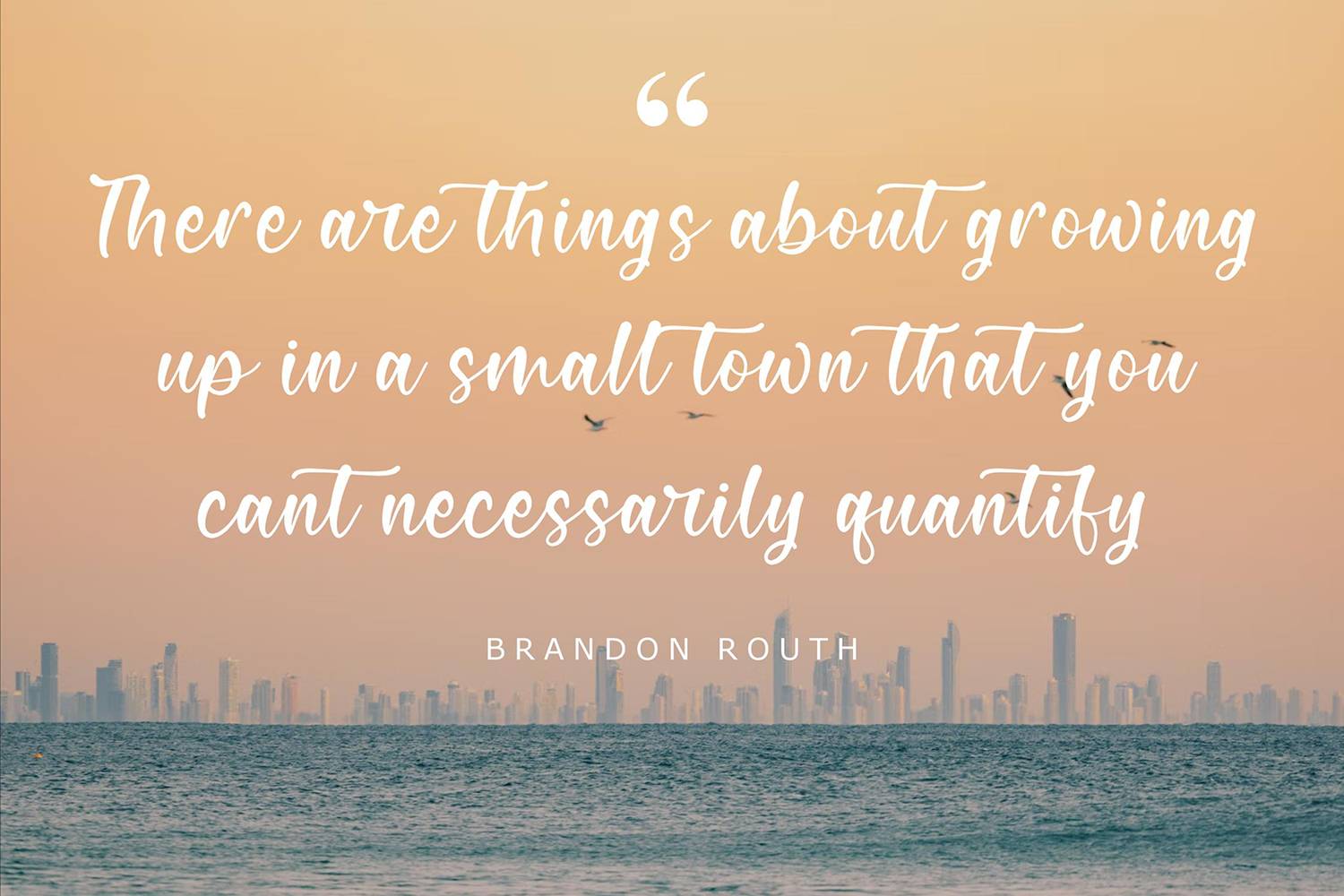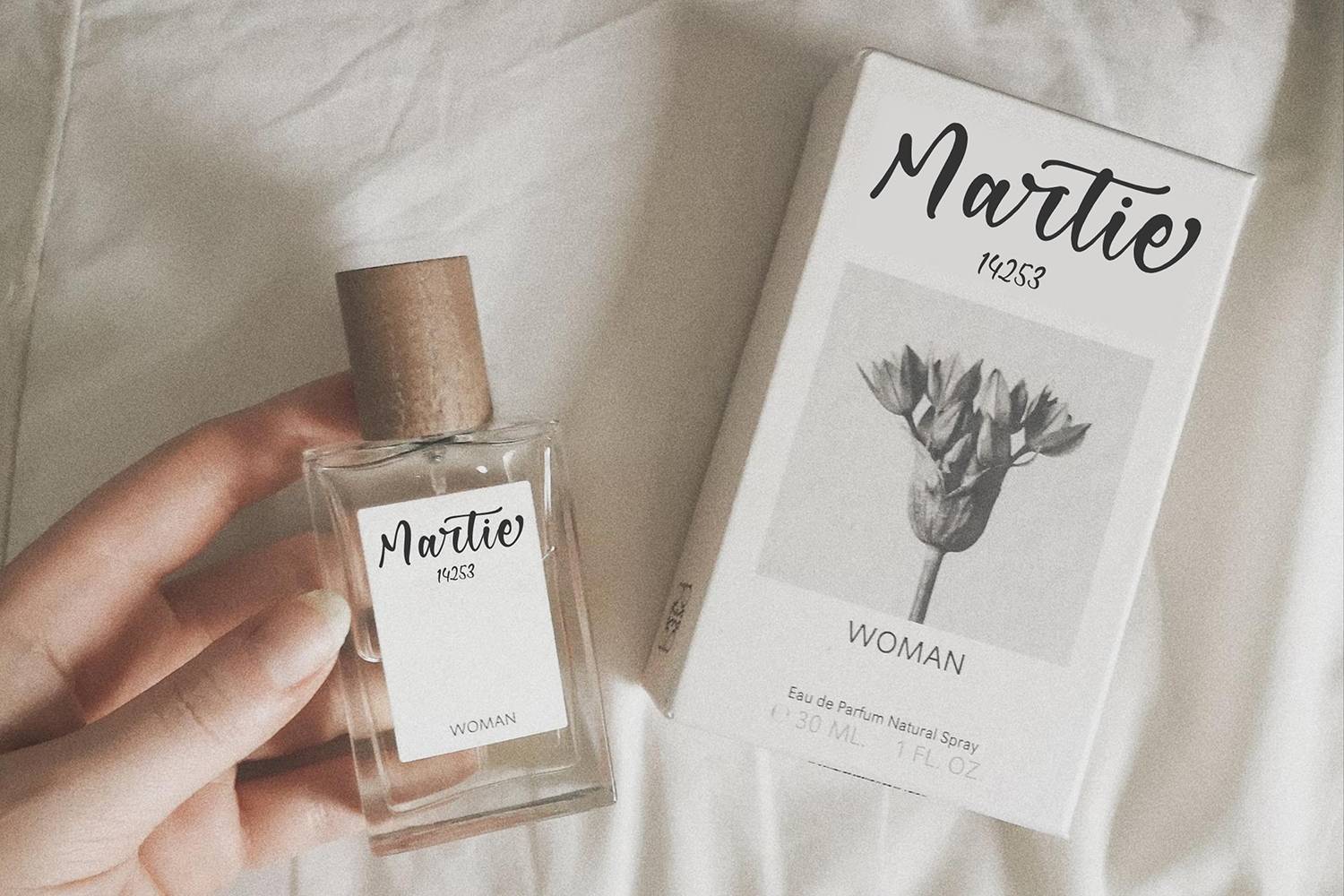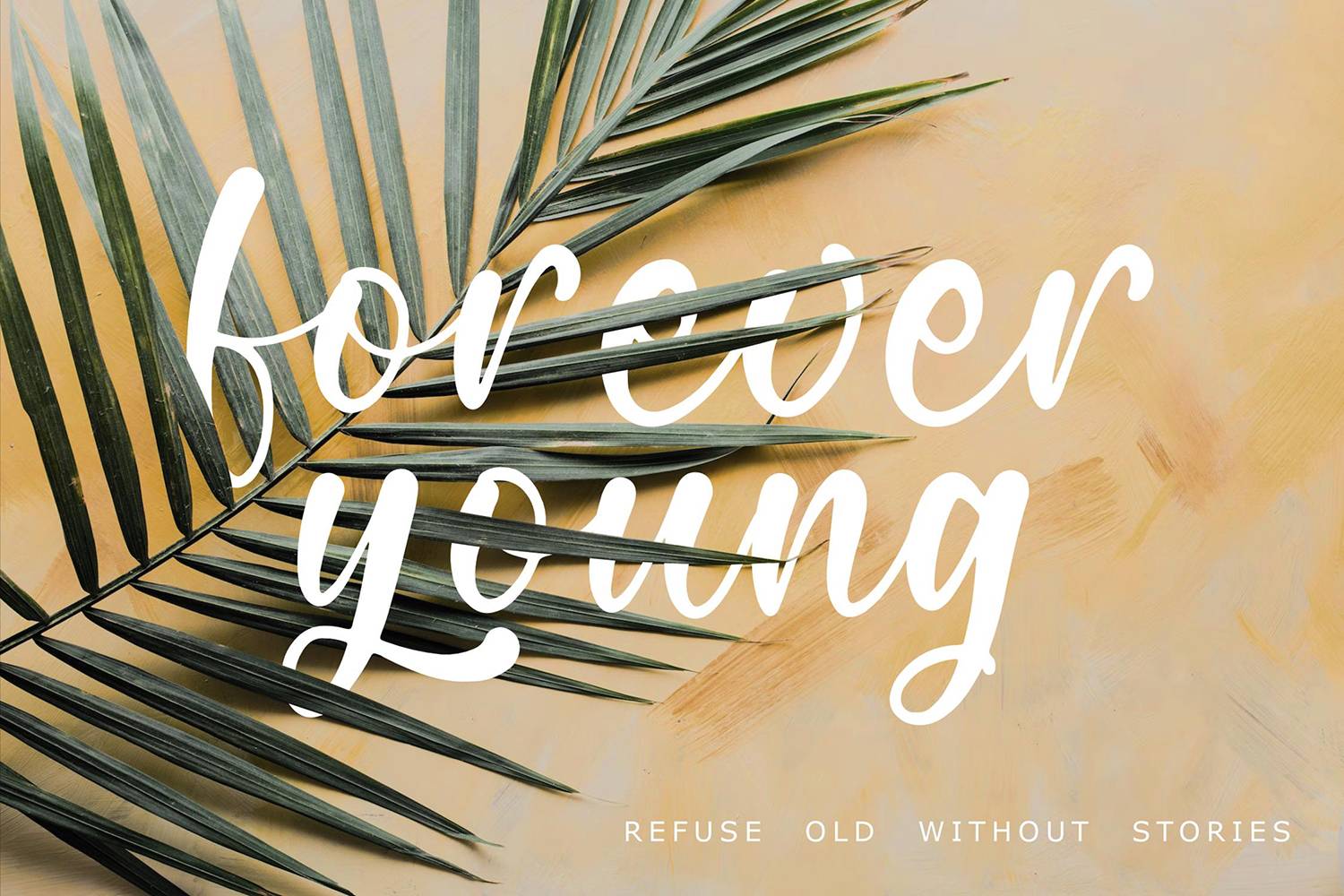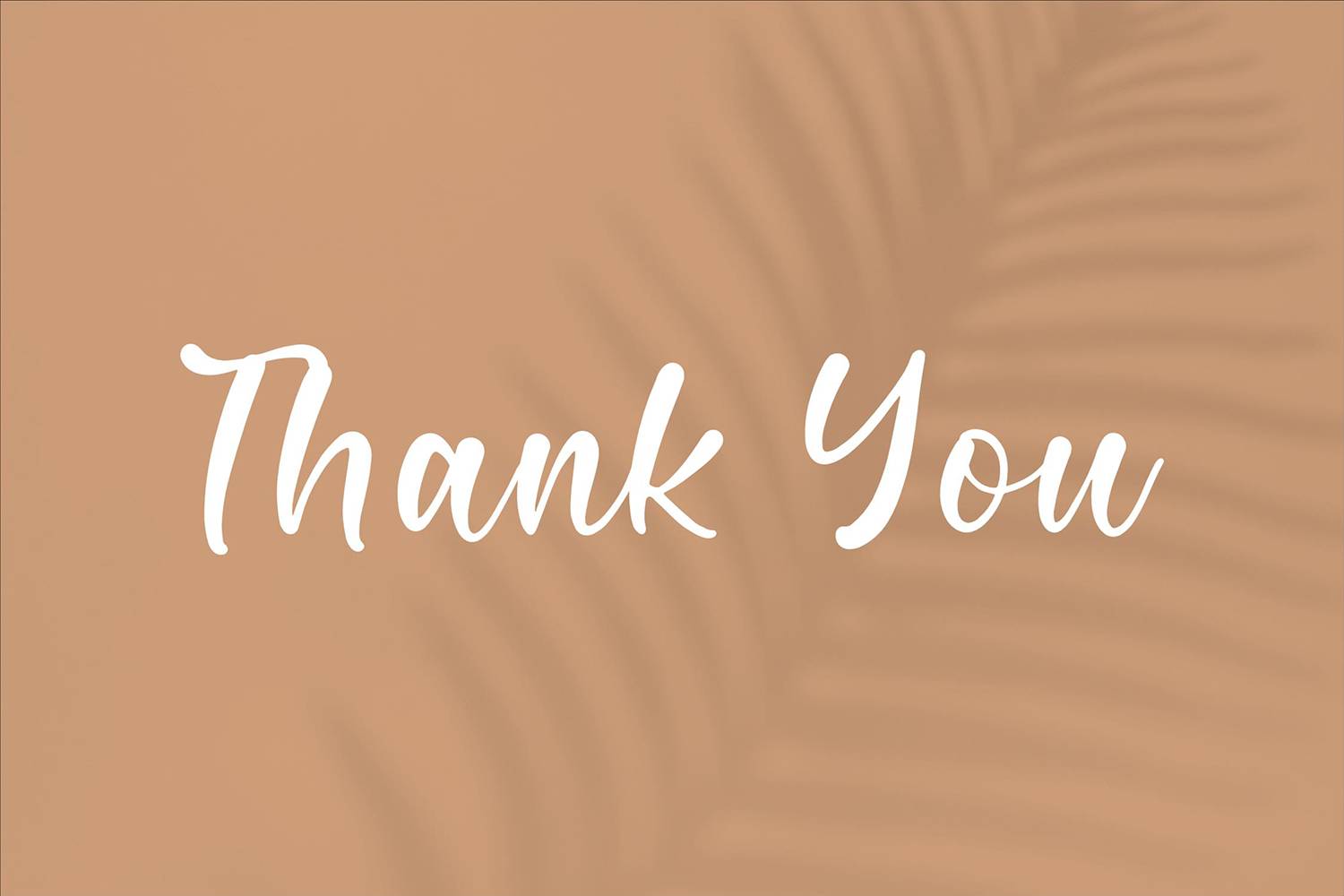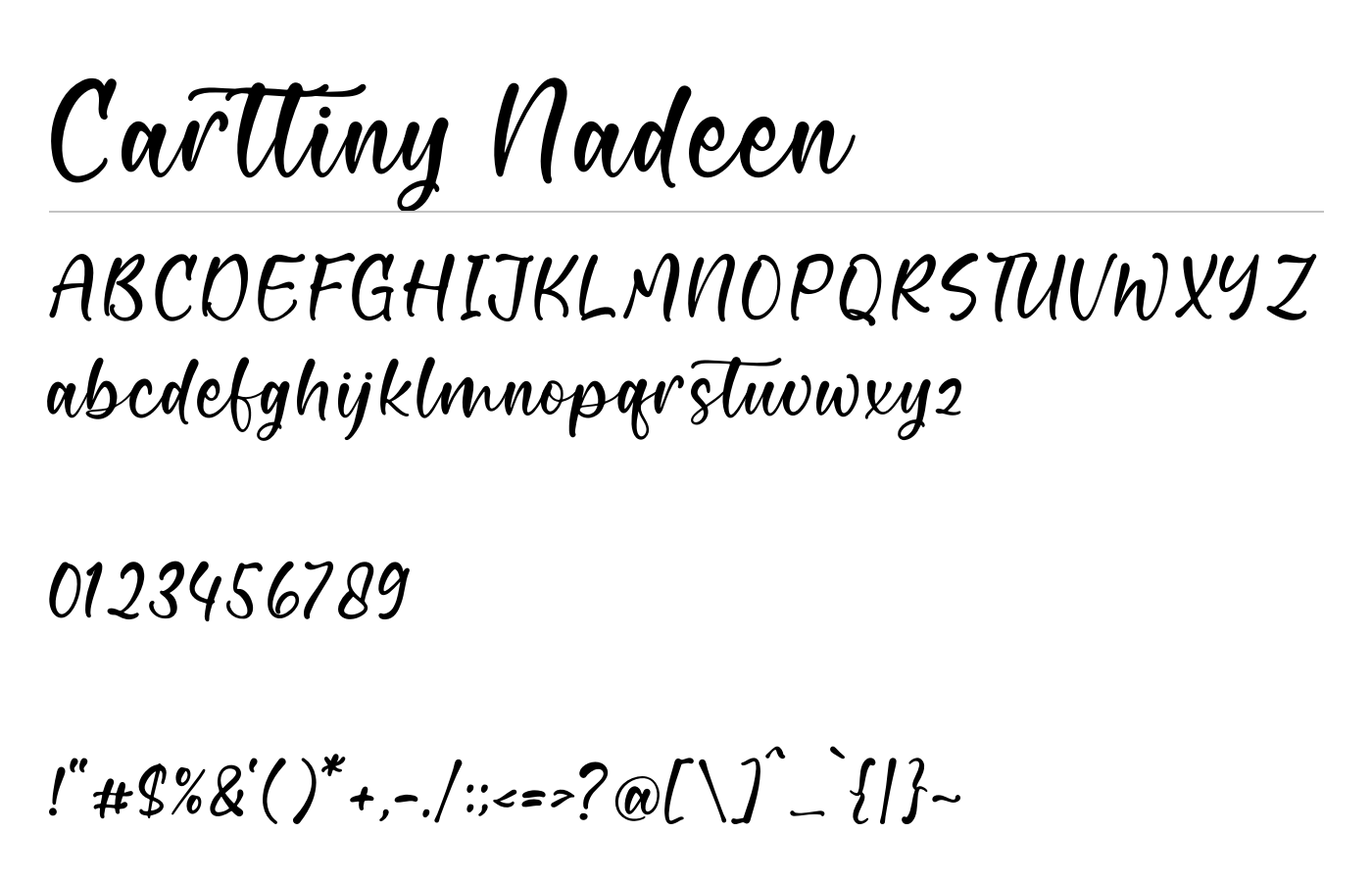
Carttiny Nadeen is a lively and elegant script font with a handwritten feel, featuring smooth, flowing strokes and moderate contrast that give it a natural and friendly appearance. Its mix of connected and slightly playful letterforms makes it ideal for creative branding, invitations, and stylish headlines where a warm, personal touch is desired. This font works well in contexts that benefit from a modern, approachable, yet refined aesthetic.
Carttiny Nadeen Font
About Carttiny Nadeen Font